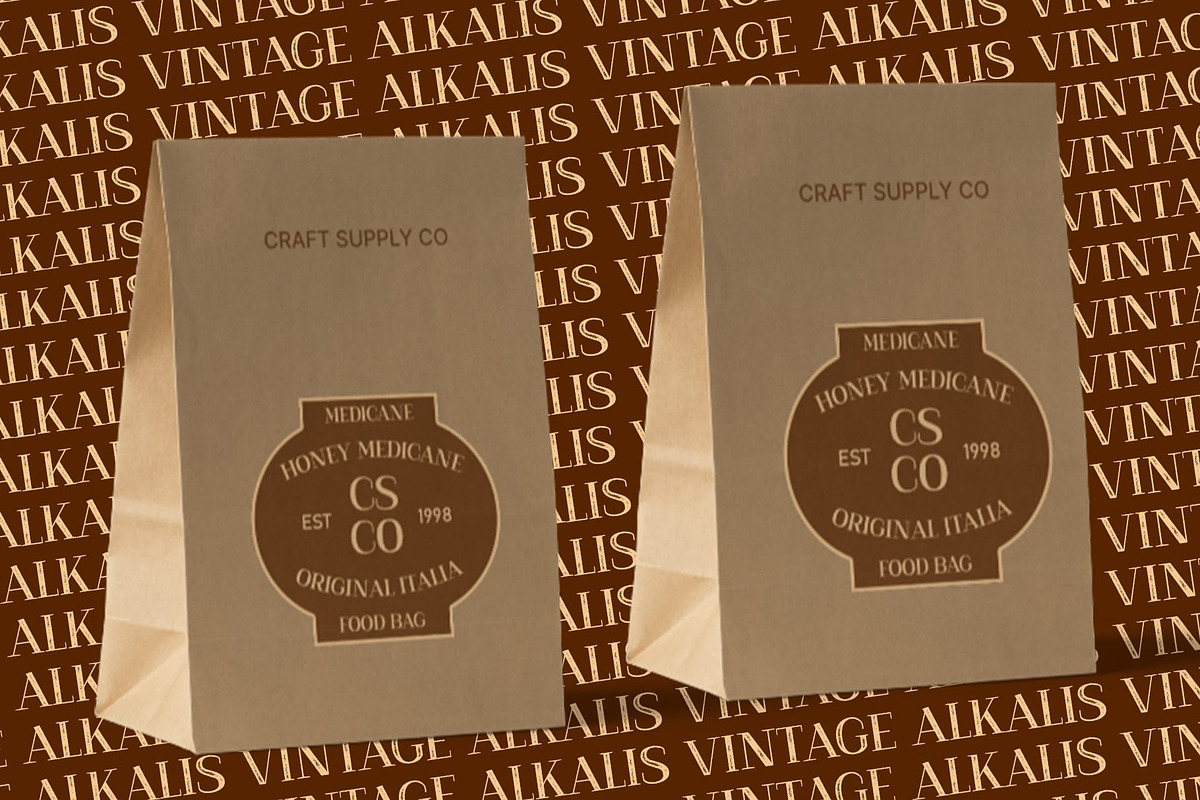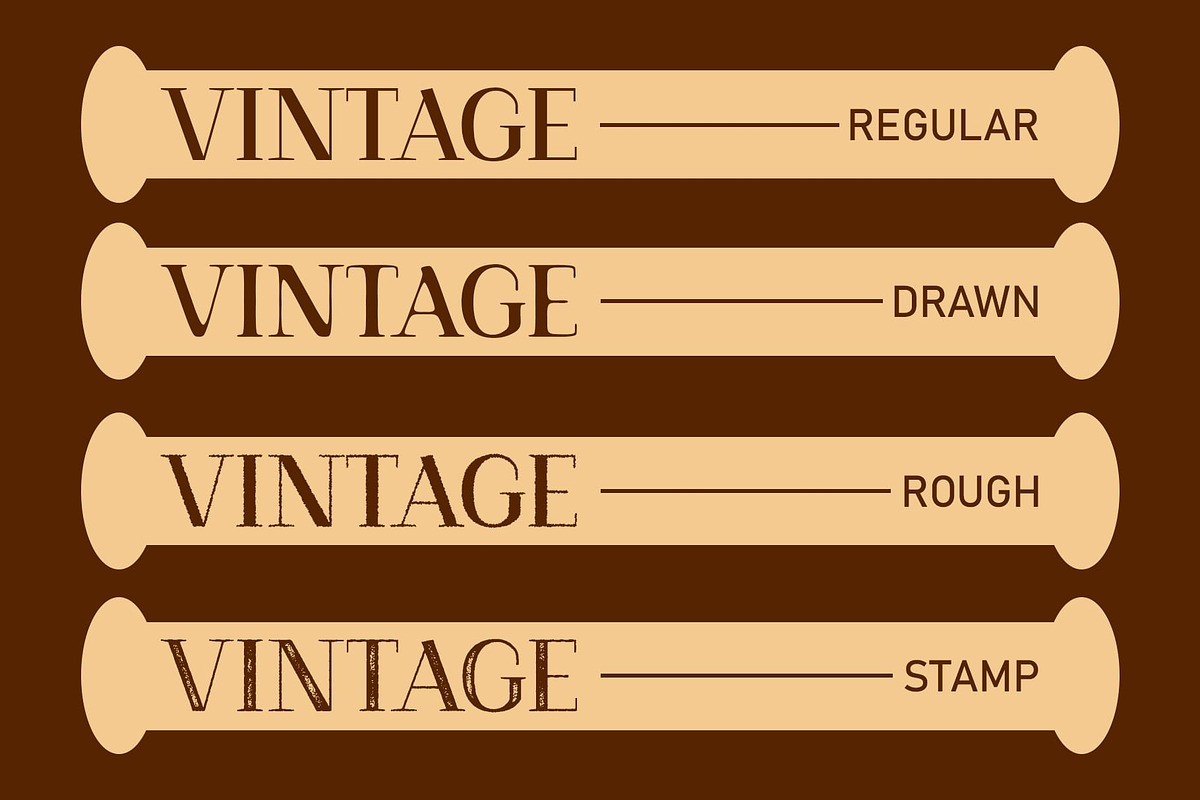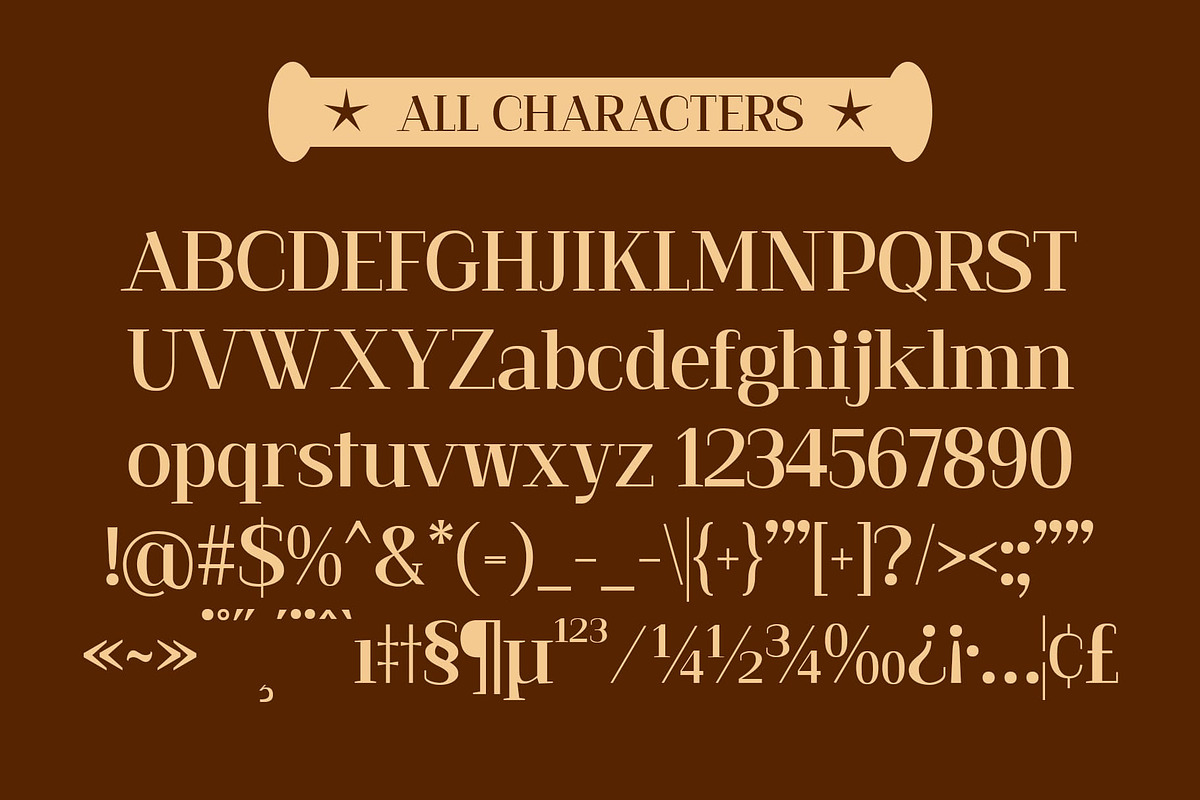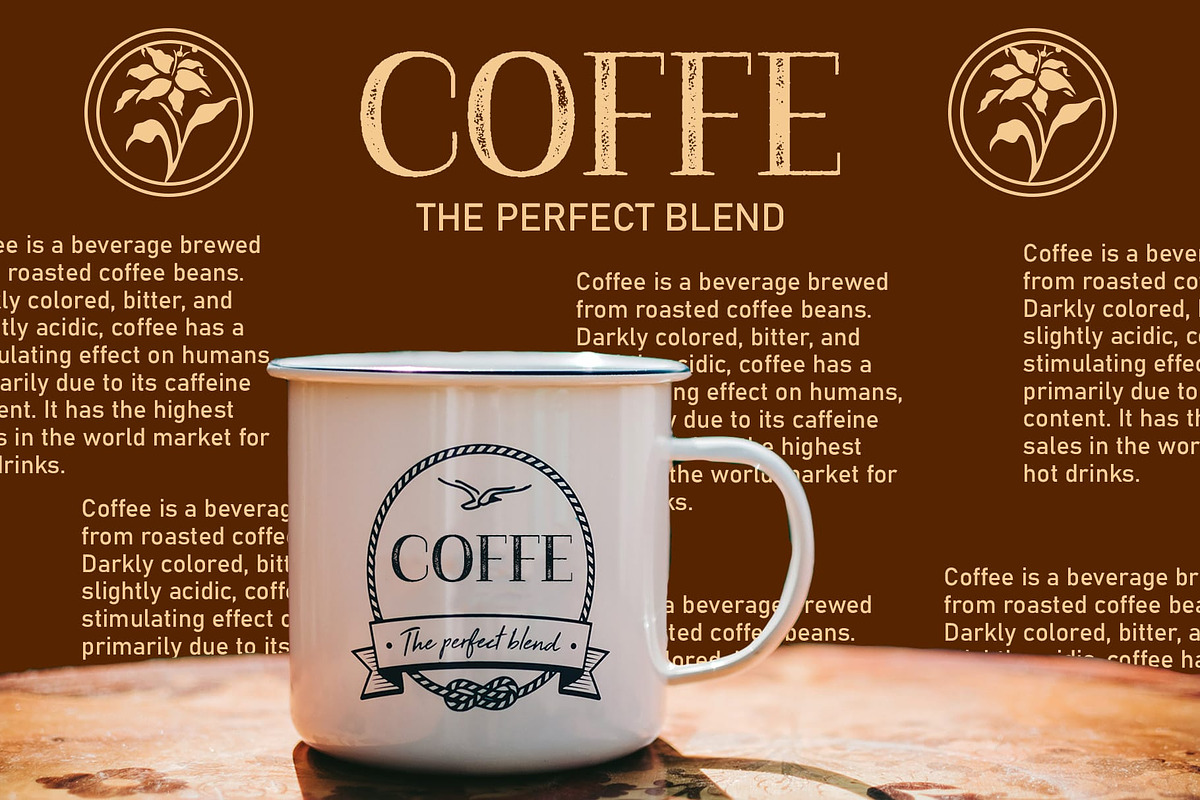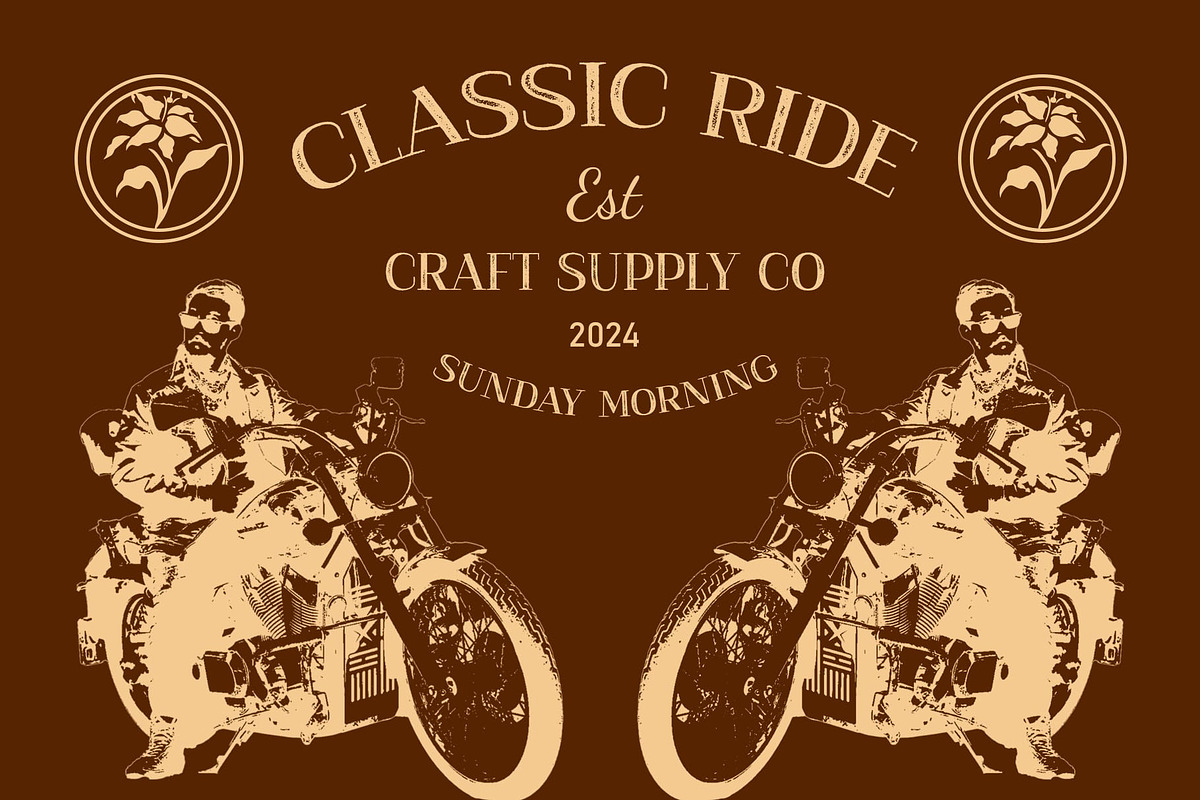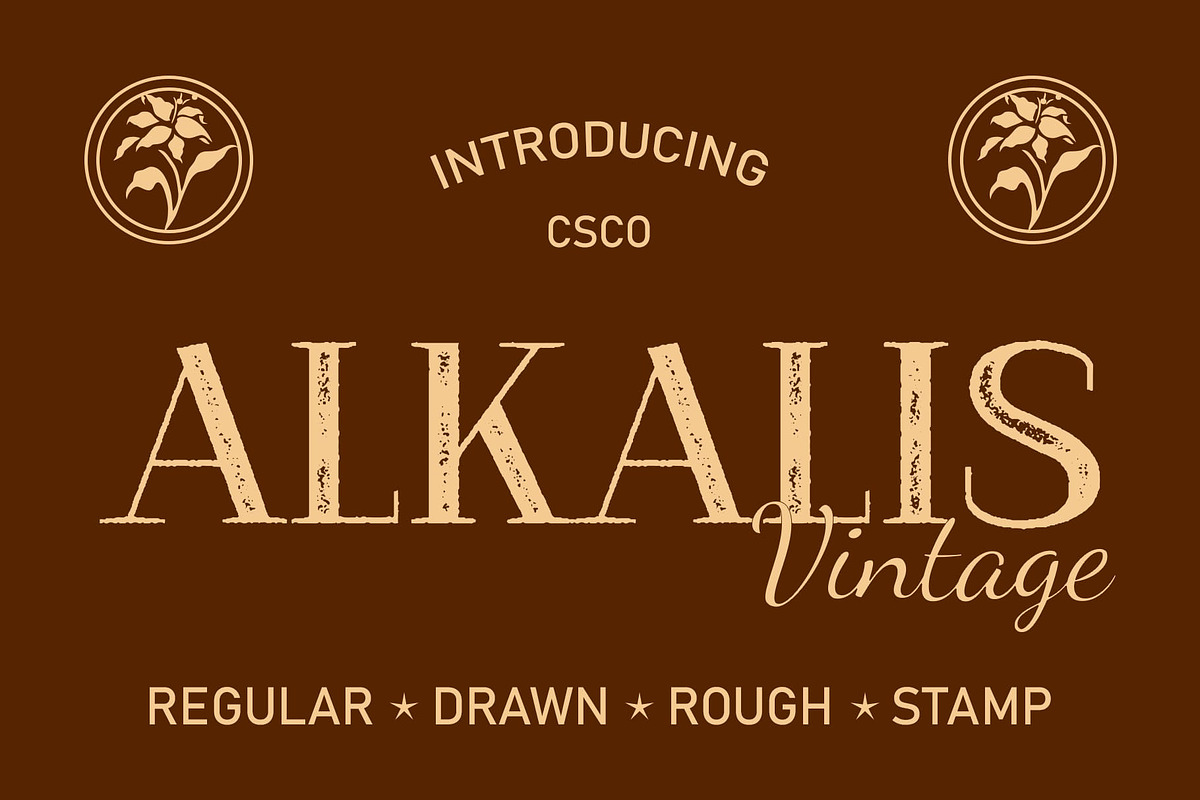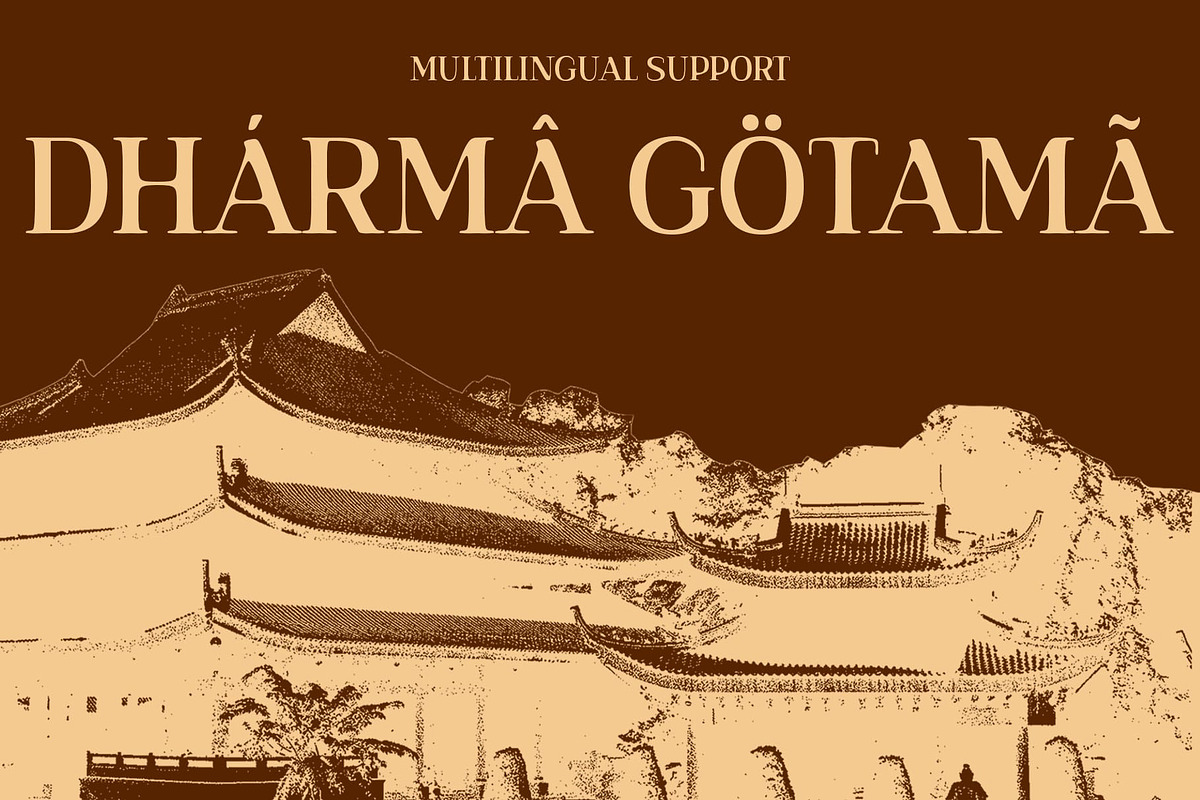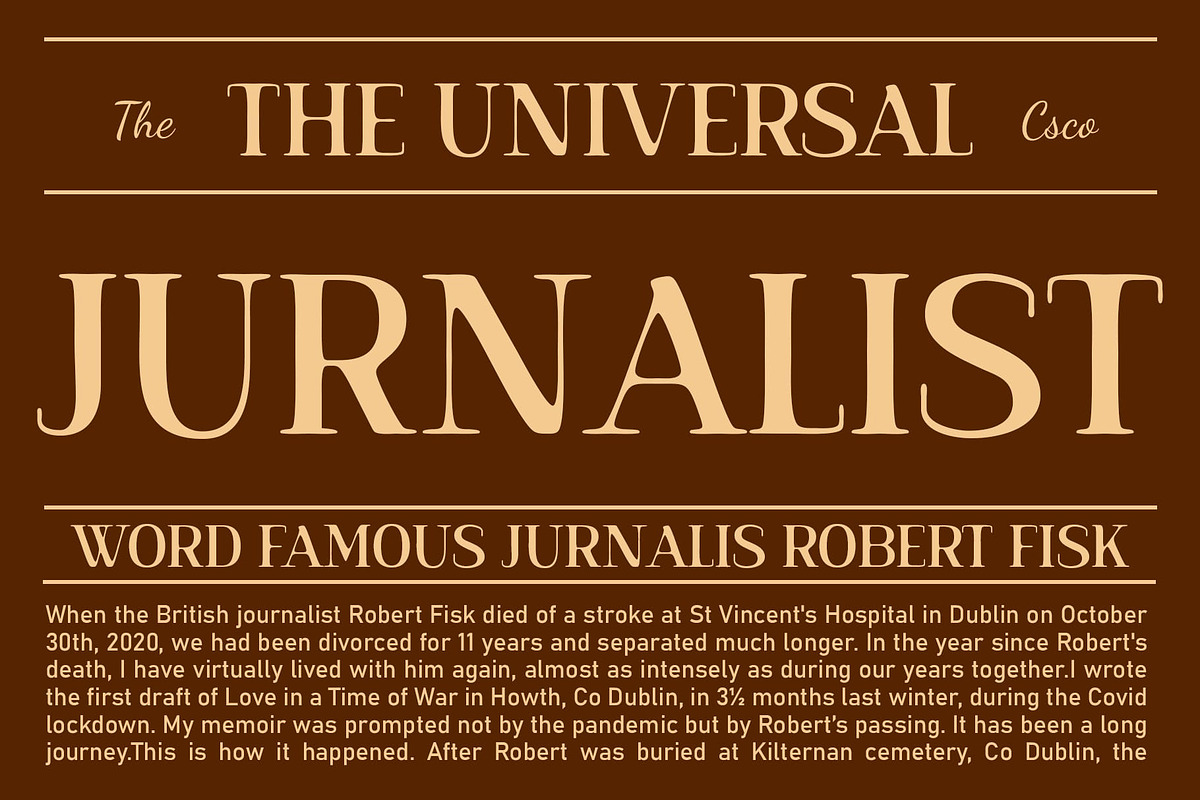
Alkalis Vintage
Alkalis Vintage: A Classic Serif Revival
Timeless Elegance Alkalis Vintage embodies the essence of classic serif typography, characterized by high contrast between thick and thin strokes. Its timeless appeal adds sophistication to any project.
Vintage Stamp Rough Effect The font features a vintage stamp rough effect, adding a touch of nostalgia and authenticity reminiscent of traditional printing methods. This unique texture infuses projects with a vintage charm.
High Contrast for Impact With its high contrast design, This font commands attention and makes a bold statement in any layout. The sharp contrast between strokes enhances readability and visual impact.
Versatile Usage This font is versatile and suitable for a wide range of applications, from branding and packaging to editorial design and signage. Its classic elegance and vintage appeal ensure versatility across various design projects.
Timeless Sophistication This font brings forth a classic serif typeface with a modern twist, featuring high contrast and vintage stamp rough effects. Its versatility and timeless sophistication make it a valuable addition to any designer’s toolkit. Experience the timeless charm of Alkalis Vintage and elevate your designs with its classic elegance.
- Alkalis Regular
- Alkalis Drawn
- Alkalis Rough
- Alkalis Stamp